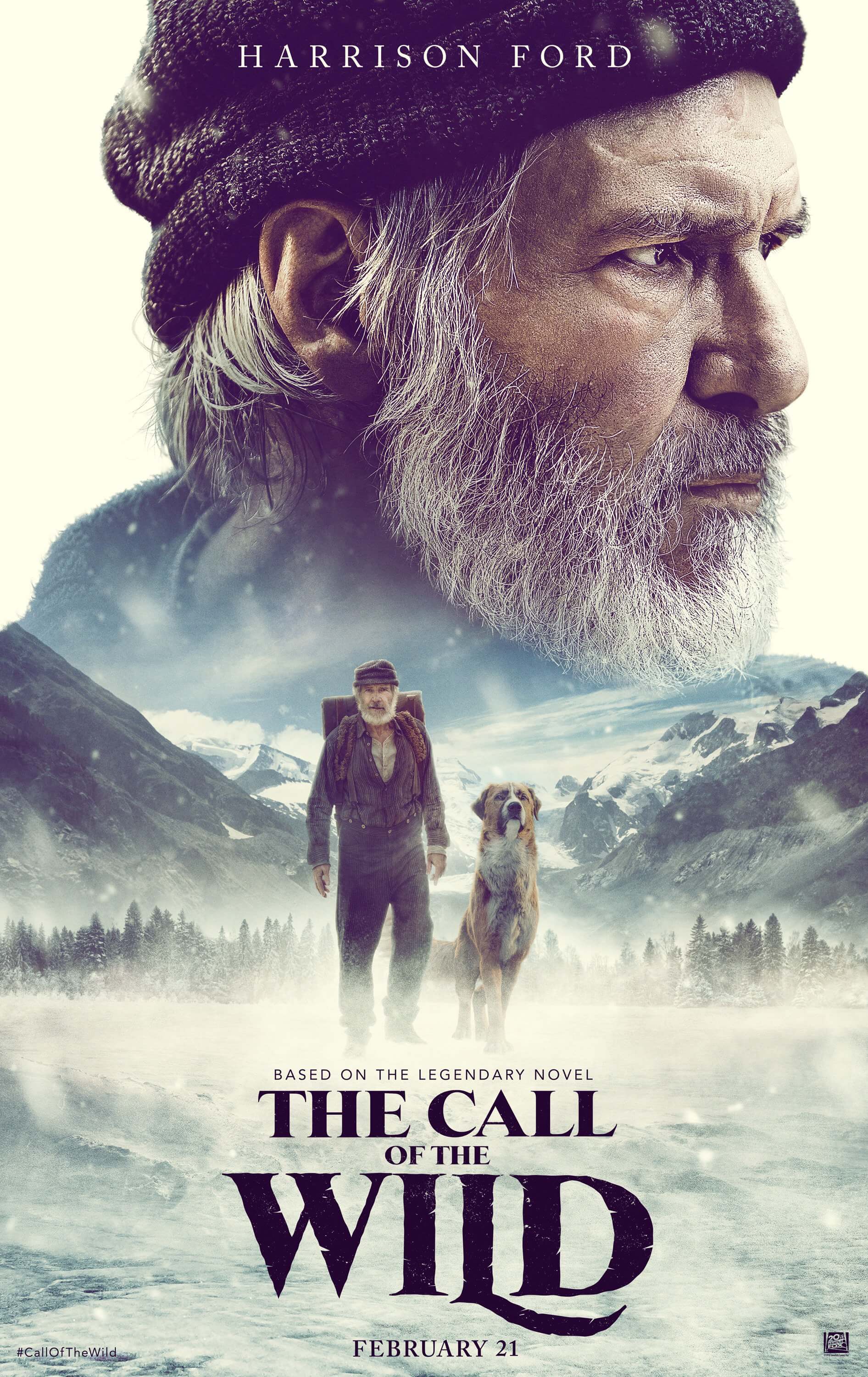
The Call of the Wild Font
AdventureThe Call of the Wild is a 2020 adventure film based on the novel of the same name by Jack London. The film follows the story of a domesticated dog named Buck who is taken from his comfortable life in California and forced to adapt to the harsh realities of the Alaskan wilderness during the Klondike Gold Rush.
The film's title, The Call of the Wild, appears to be Mike Parker's Starling. "THE CALL OF THE" is set in its Ultra weight, and the text "WILD" may be lettered based on the Ultra weight. Five weights are available for Starling, with matching italics.